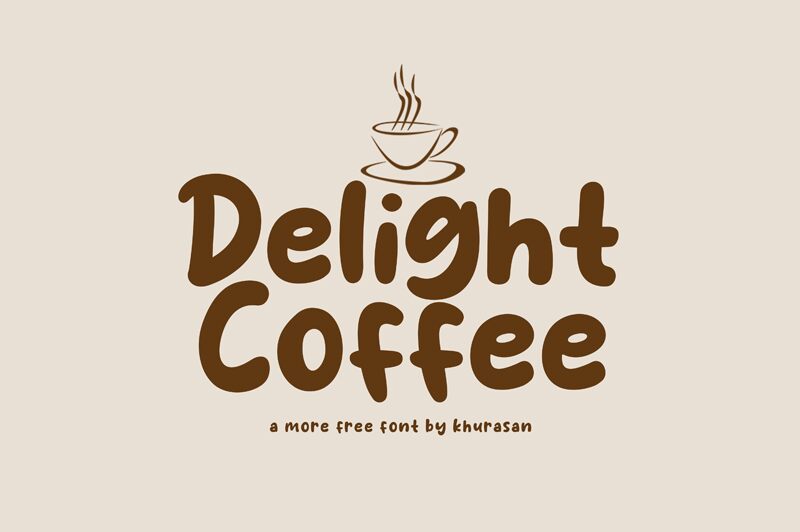
Delight Coffee
Delight Coffee is a bold and playful handwritten font designed by Khurasan. Perfect for creating eye-catching designs, this font is suitable for projects ranging from logos and posters to invitations and greeting cards.